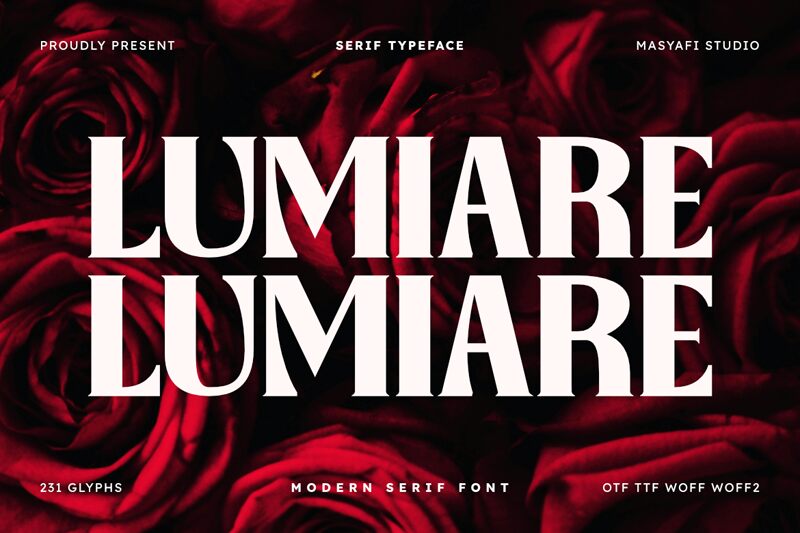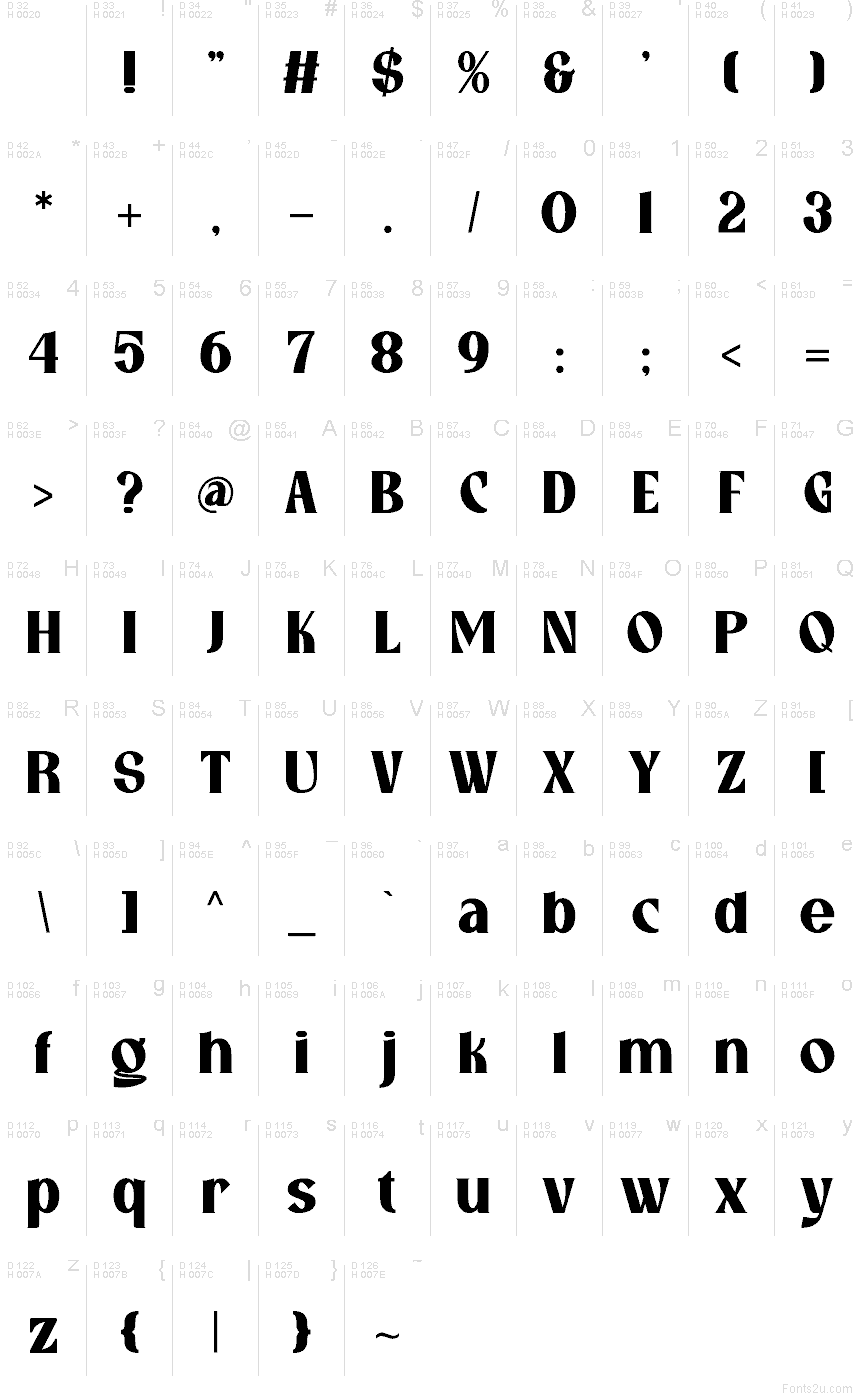
Lumiare by Masyafi Studio is a free high-contrast serif with a polished editorial mood. The letters pair tall, crisp strokes with soft bracketed serifs and rounded curves, so the font feels refined rather than severe.
It fits naturally into fashion mastheads, beauty packaging, boutique branding, book covers, and restaurant menus, where that contrast gives short lines a poised, upscale tone. As a free font, Lumiare also works well for cover lines and title cards that need a classic serif voice with a slightly softened, contemporary finish.